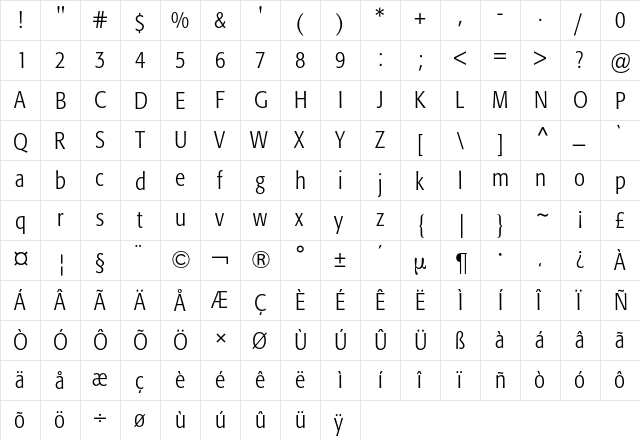
Formata Condensed BQ Regular
Design Context for Formata Condensed BQ Typeface
Formata Condensed BQ takes a measured approach to typography — its balanced proportions and neutral character make it a reliable workhorse for both digital and print work. The condensed width makes it efficient for tight spaces without sacrificing legibility.